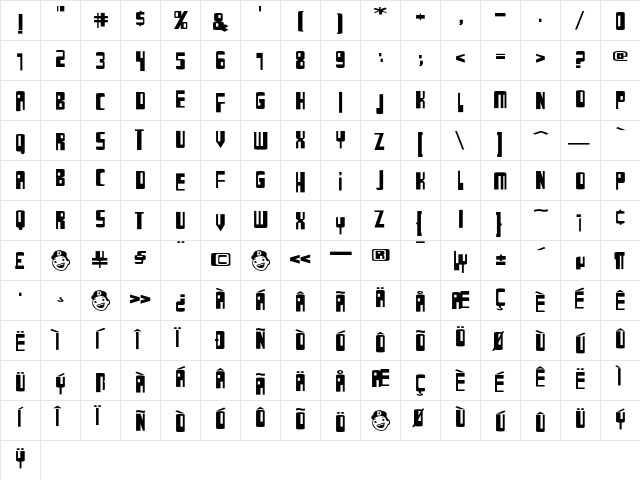
BigBeatBold Regular
Design Context for BigBeatBold Typeface
BigBeatBold is a composed and adaptable typeface that performs quietly and consistently across a wide range of design contexts. The heavy weight commands attention and anchors typographic hierarchies.